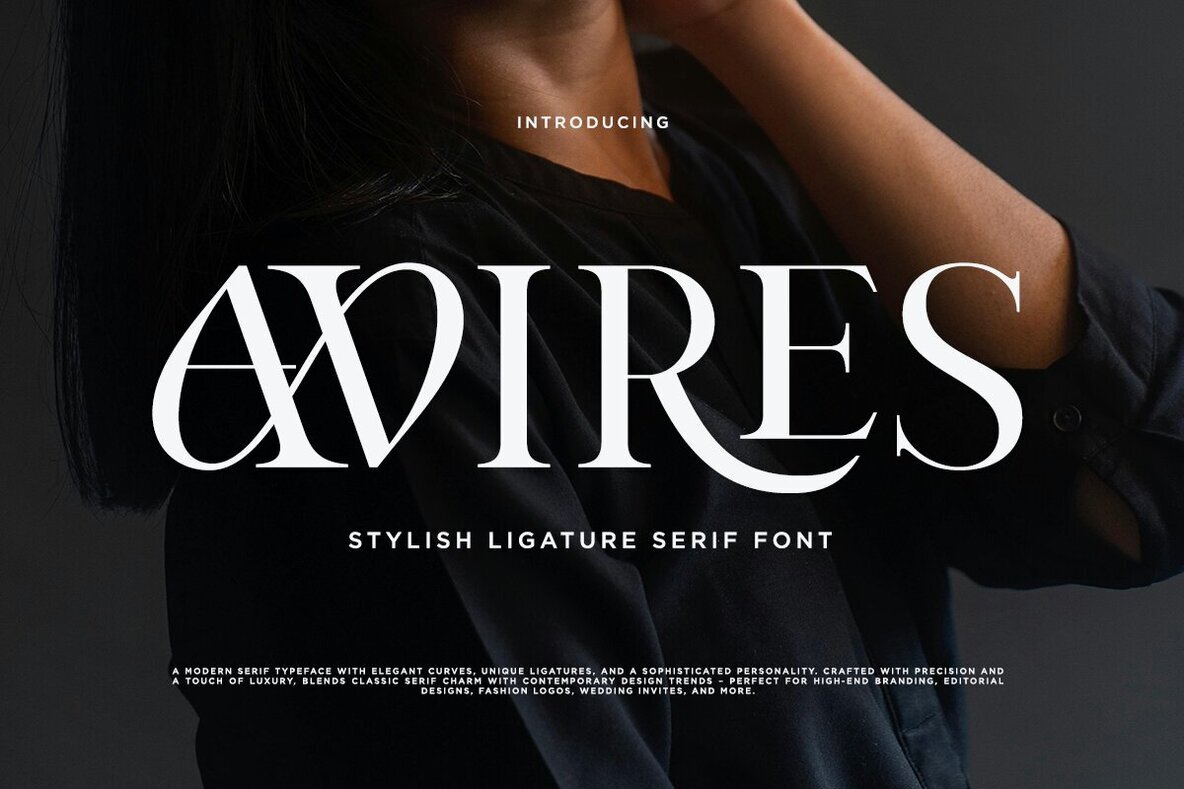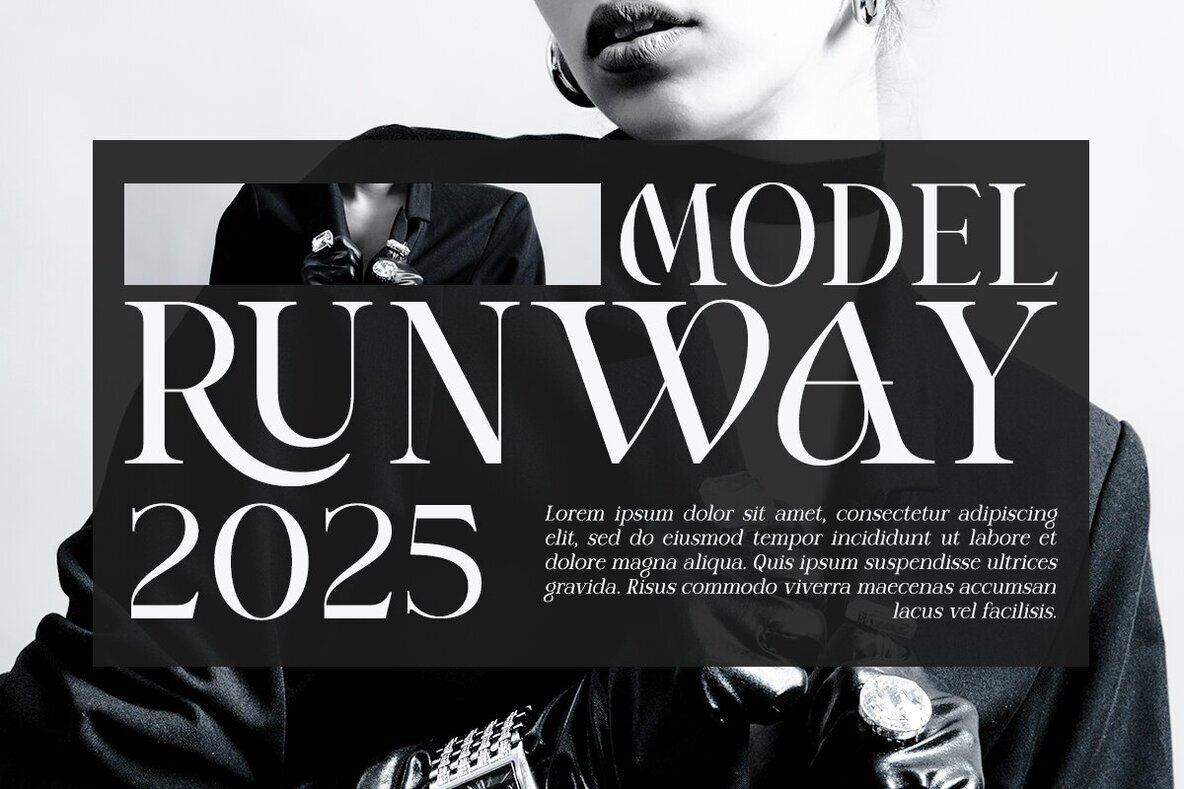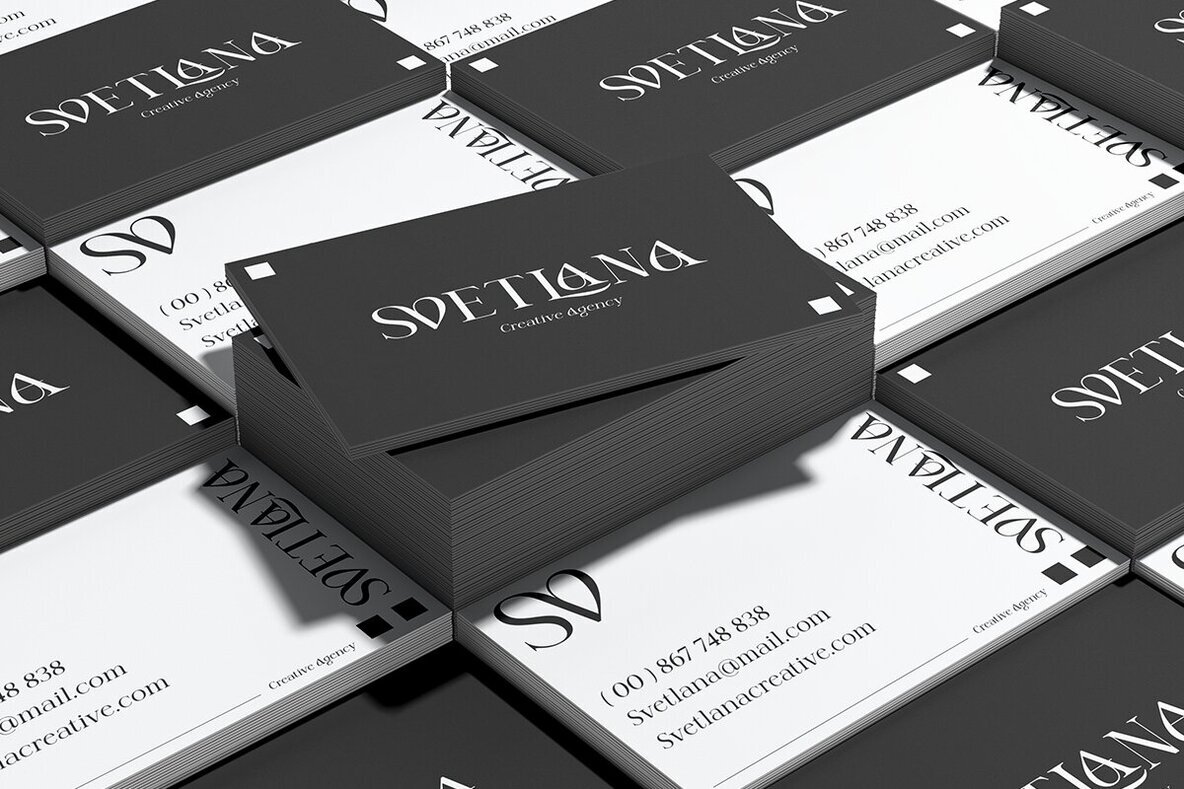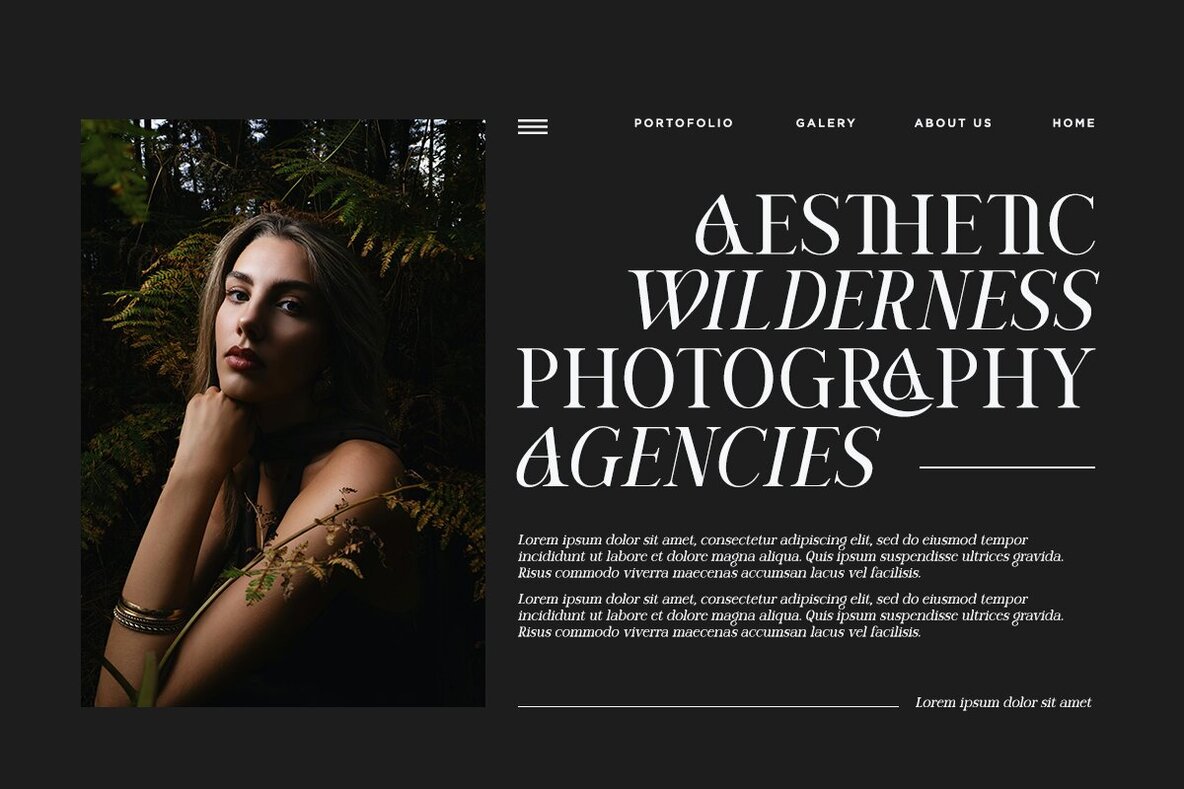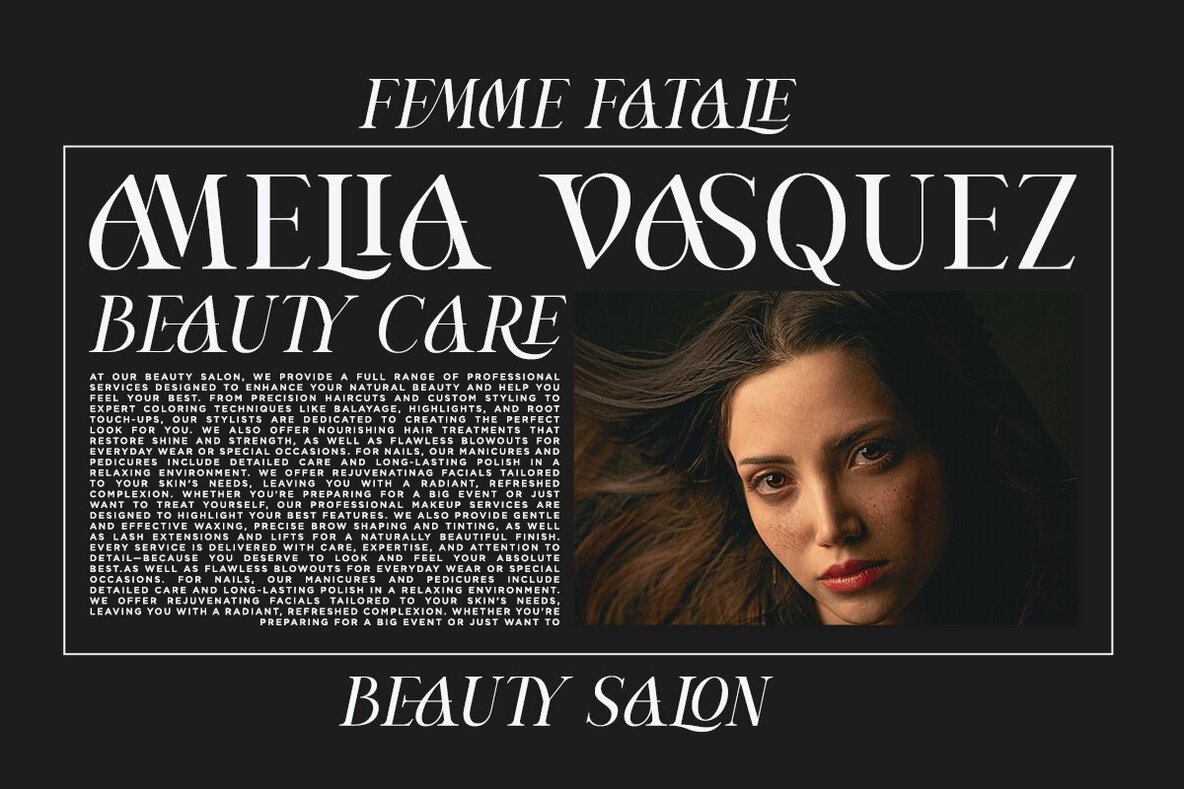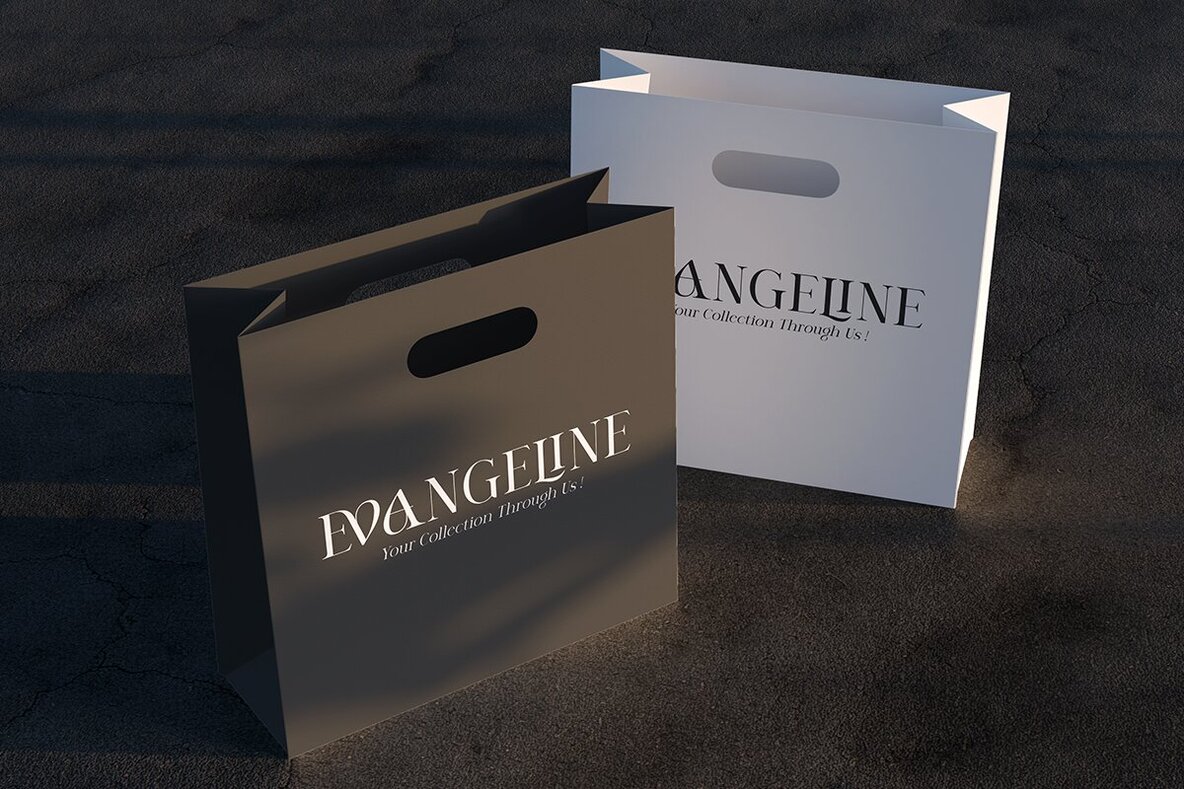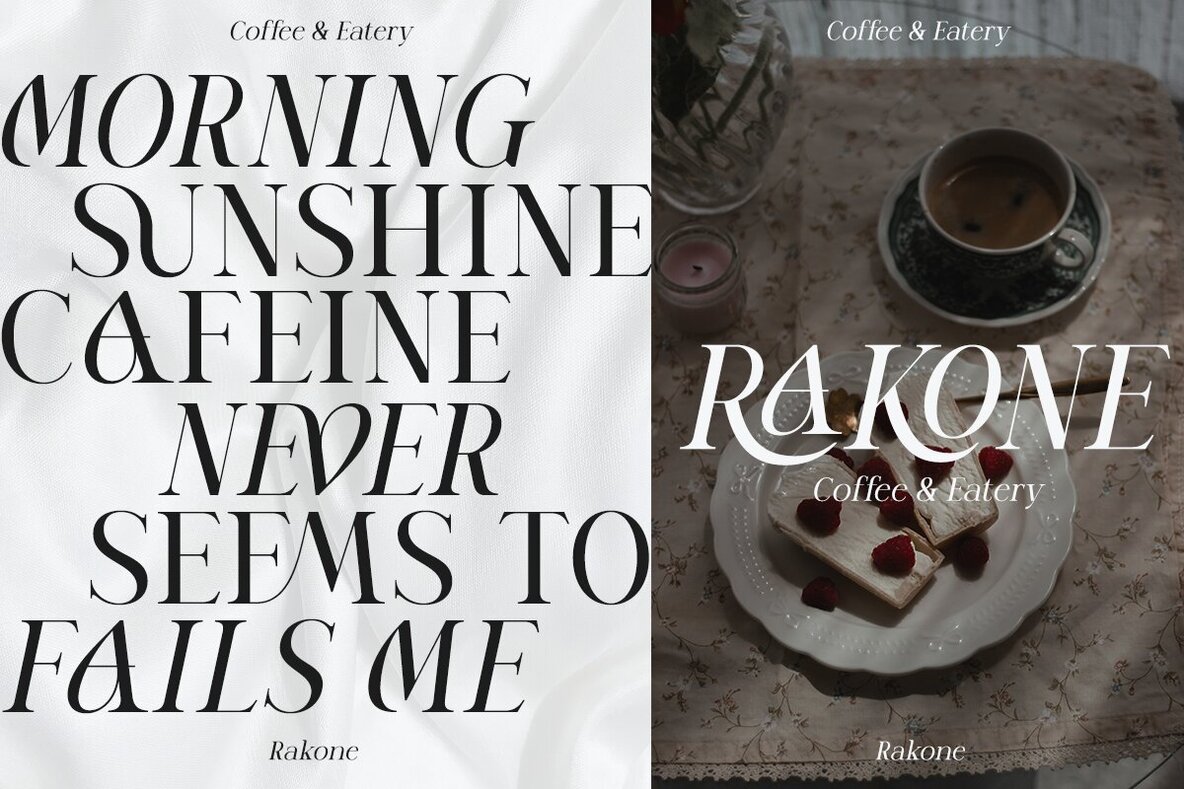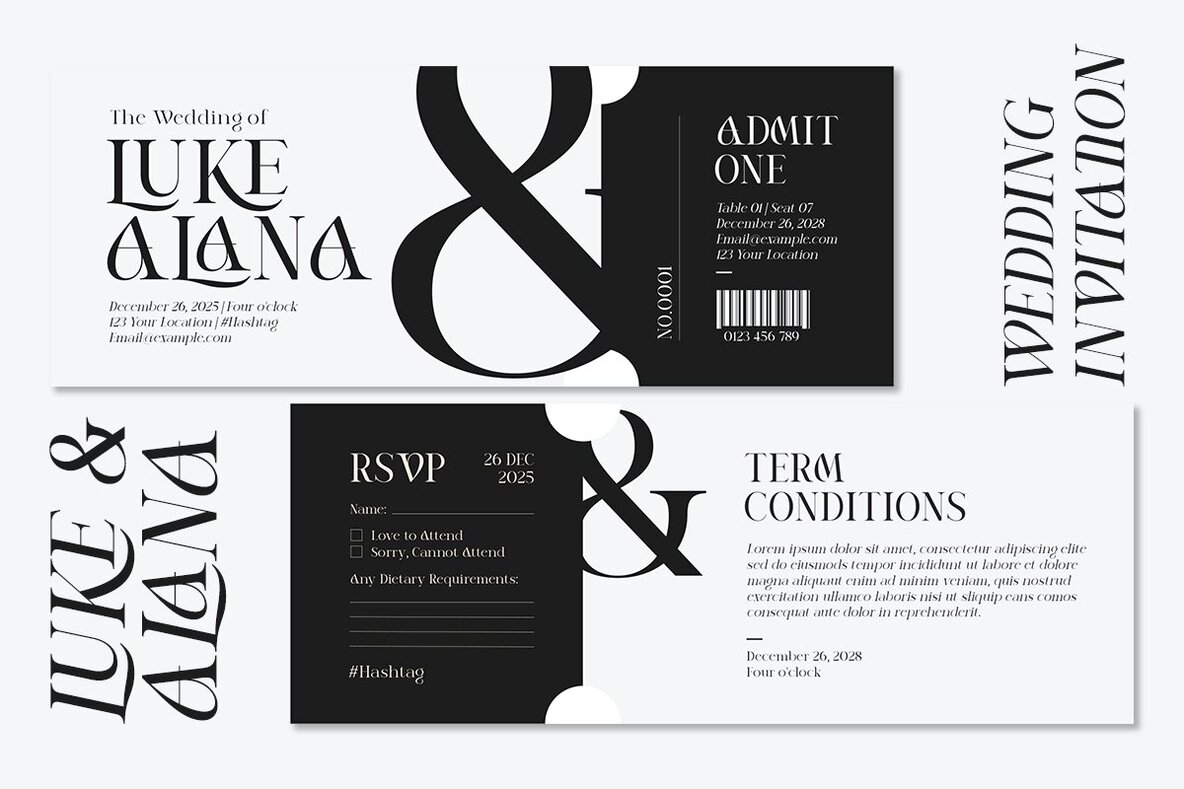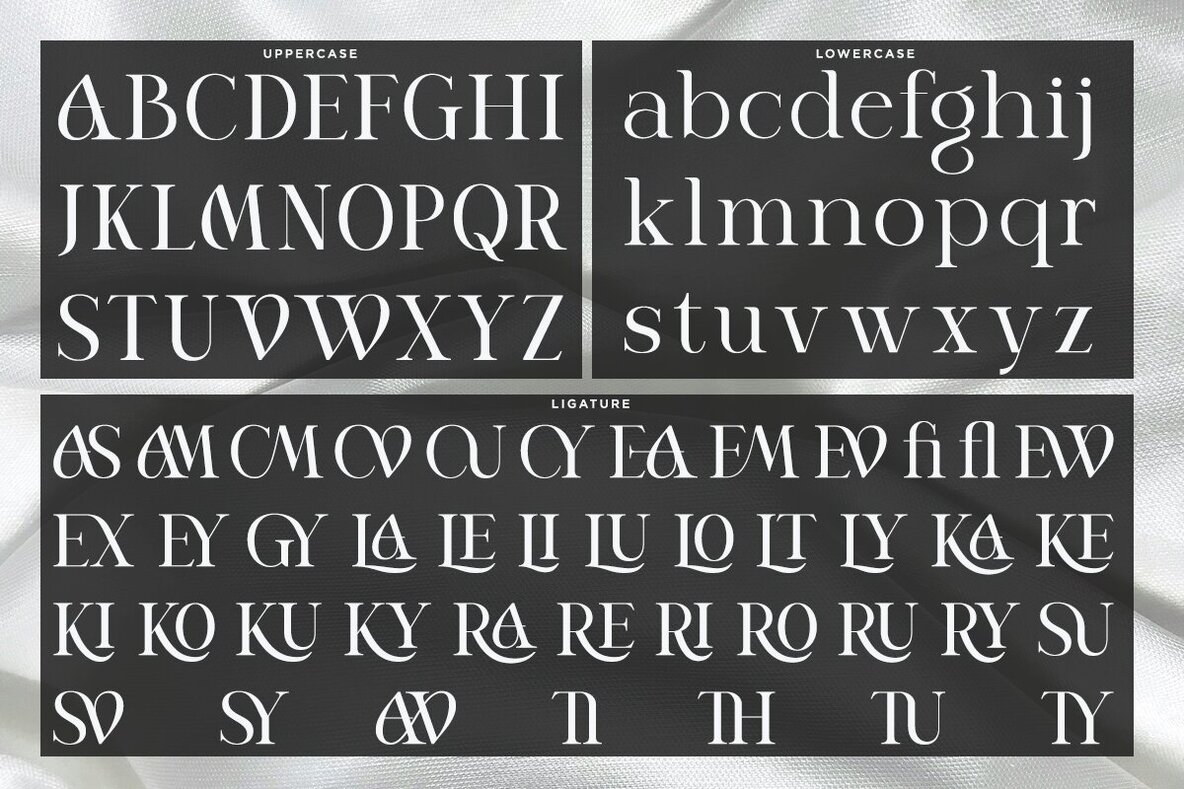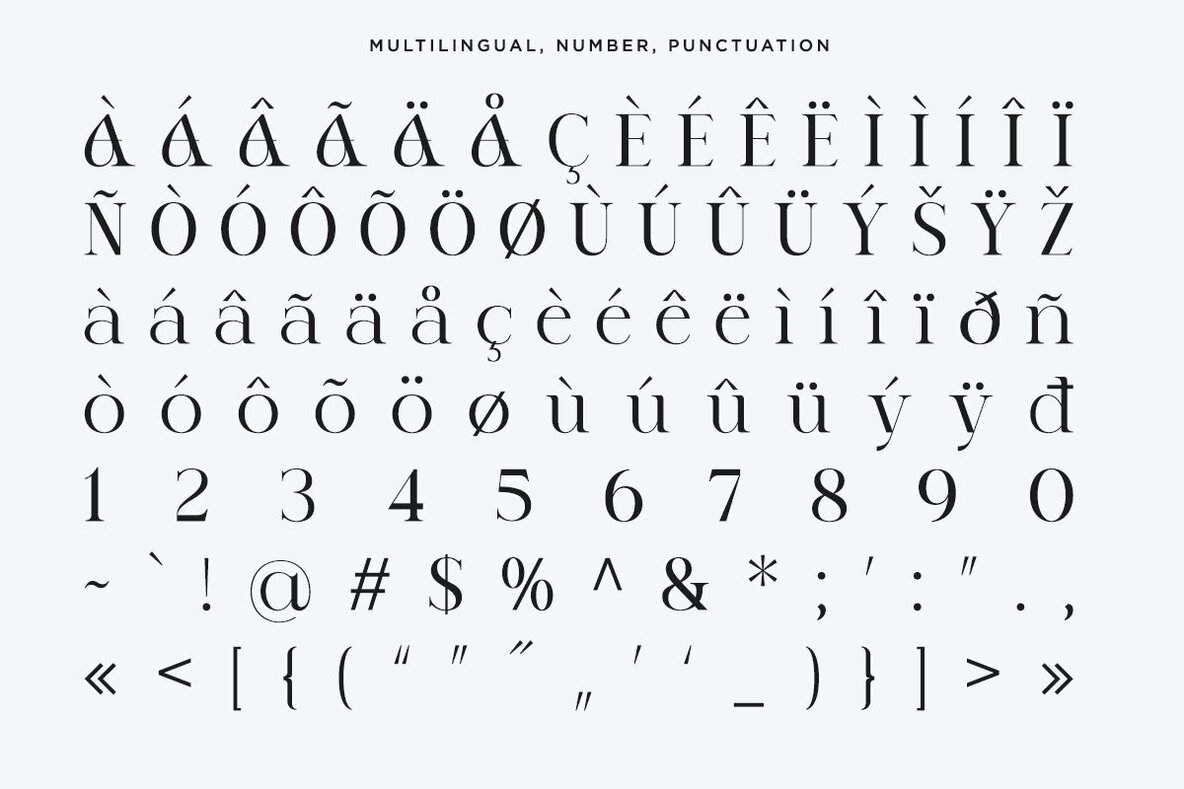
Avires Font
Avires is a distinctive ligature serif font built for creative professionals who value sophistication. Its refined curves and sharp serifs create a high-fashion appeal, while unique ligature combinations introduce a fresh, contemporary touch. Avires’ design finds an optimal blend of timeless charm and modern style, making it a standout choice for projects seeking elegance without excess. Ideal for branding, headlines, titles, logos, websites, and business cards, Avires draws focus to your text with poise. The font includes both regular and italic styles, offering versatility and depth.Avires Ligature Serif Font